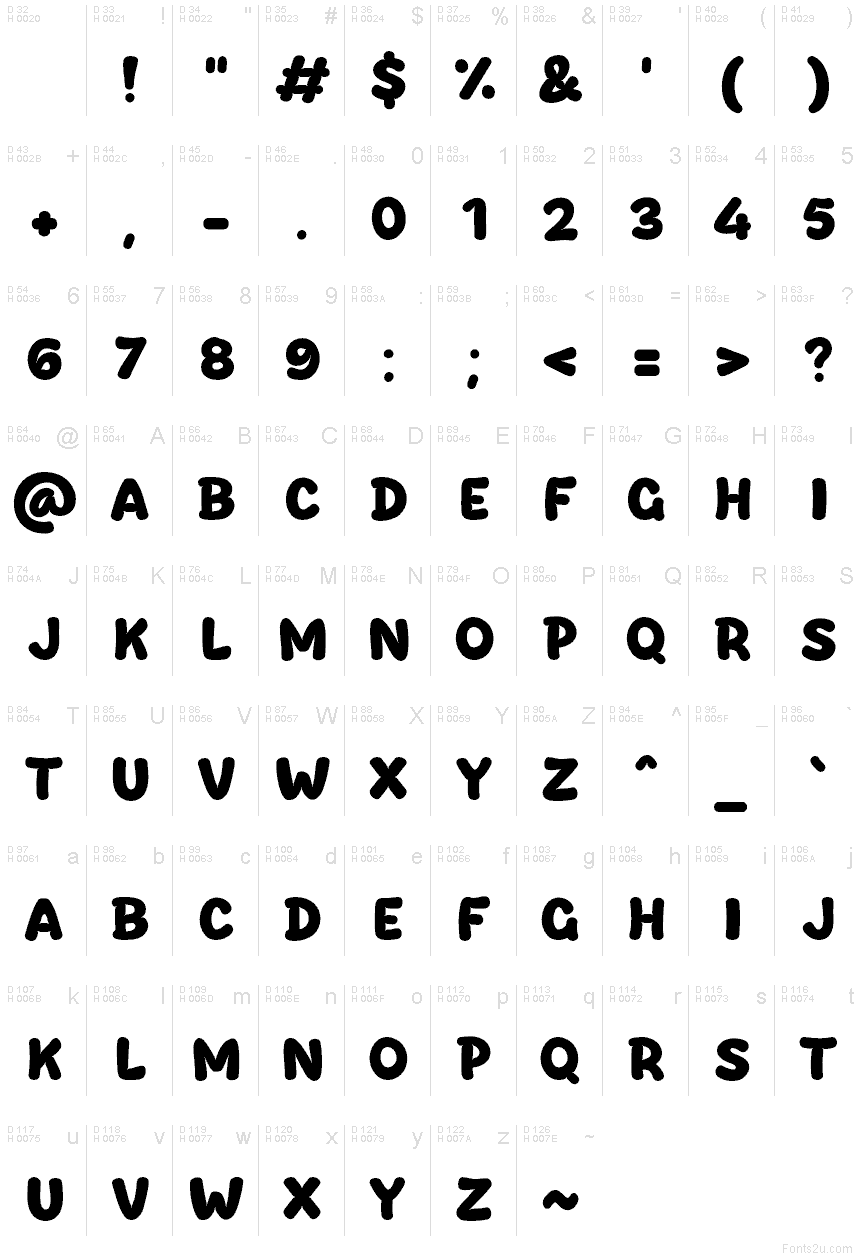
Base Moon
Base Moon font from Origin Type is a bold display cartoon typeface with a friendly, approachable, and rounded appearance. With its retro vibe and casual aesthetic, this free font can be a perfect addition to your creative ideas that you are looking forward to working on.
Let your imagination go wild by incorporating this type into greeting cards, stickers, labels for products or foods packages. It can also work on mug printing designs or typography art about certain trends or even in timeless newspaper articles. Signages for events like fairs are another area that Base Moon font can shine in.